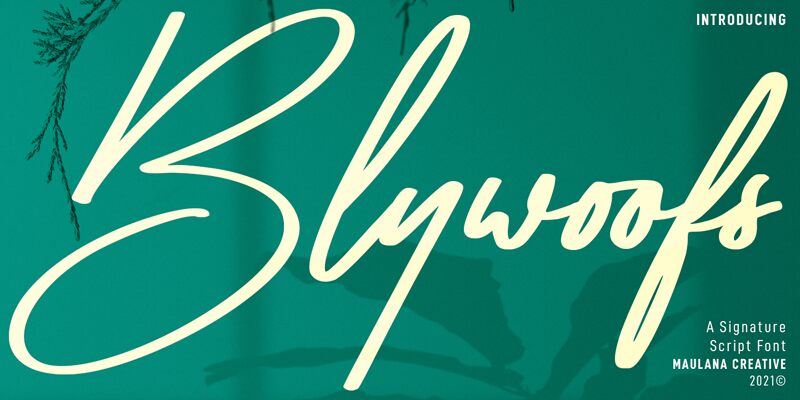
Blywoofs Free Regular
Blywoofs, the latest creation by Maulana Creative, is a beautifully crafted handwritten signature font that exudes elegance and sophistication. Its light weight adds a delicate touch to any project, making it perfect for wedding invitations, event branding, and luxury product packaging. The flowing strokes of Blywoofs create a seamless connection between letters, mimicking the fluidity of hand-written calligraphy. From logos to social media graphics, this semi-bold typeface is versatile enough to add a personal touch to any design project. With Blywoofs at your fingertips, your creativity knows no bounds.